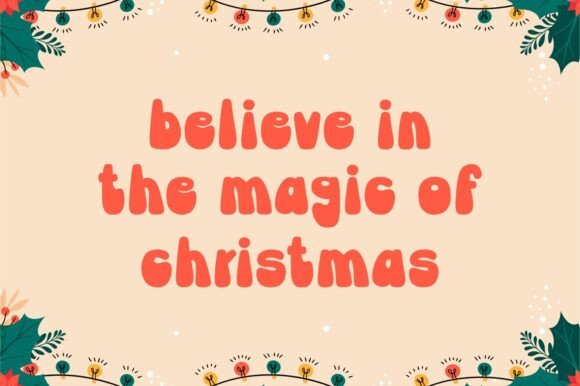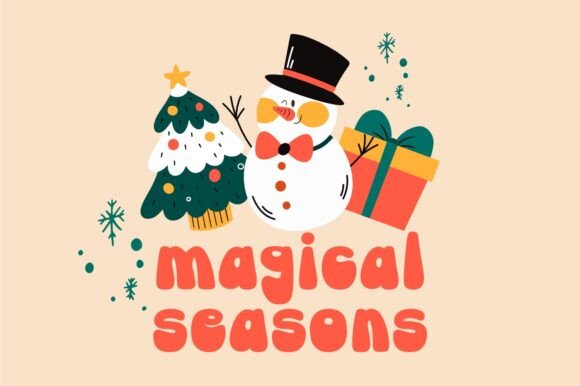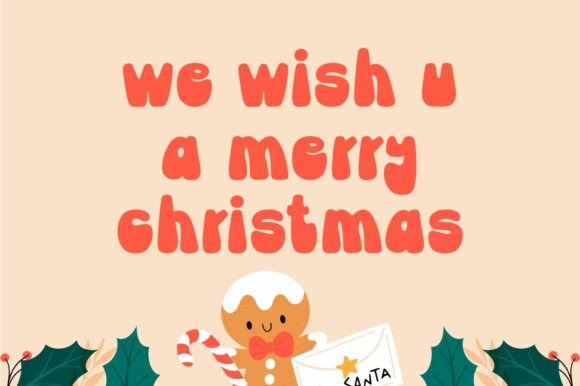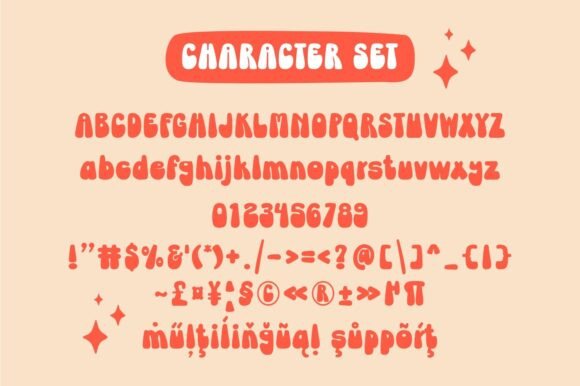
Introduction to Retro Merry Font Font
Fonts play a crucial role in design, and the Retro Merry Font font is a typeface that brings both character and versatility to any project. Whether you’re working on a branding project, a website, or a print design, the Retro Merry Font font offers a unique style that can elevate your work.
Retro Merry is a bold, bubbly font inspired by vintage holiday cheer.
Its rounded, playful shapes evoke nostalgia and warmth, making it perfect for Christmas cards, festive decorations, gift tags, and seasonal branding With multilingual support and a fun retro vibe, this font effortlessly adds joy and whimsy to your holiday projects.
Key Features of Retro Merry Font Font
Why Choose Retro Merry Font Font?
The Retro Merry Font font is more than just a typeface – it’s a design tool that helps you communicate your message with style and clarity. Its unique character set and versatile design make it suitable for a wide range of applications, from elegant invitations to bold headlines.
With its carefully crafted letterforms and balanced proportions, the Retro Merry Font font ensures readability and visual appeal across all mediums.
What makes Retro Merry Font font special?
The Retro Merry Font font stands out with its unique design, exceptional readability, and versatility across various design applications.